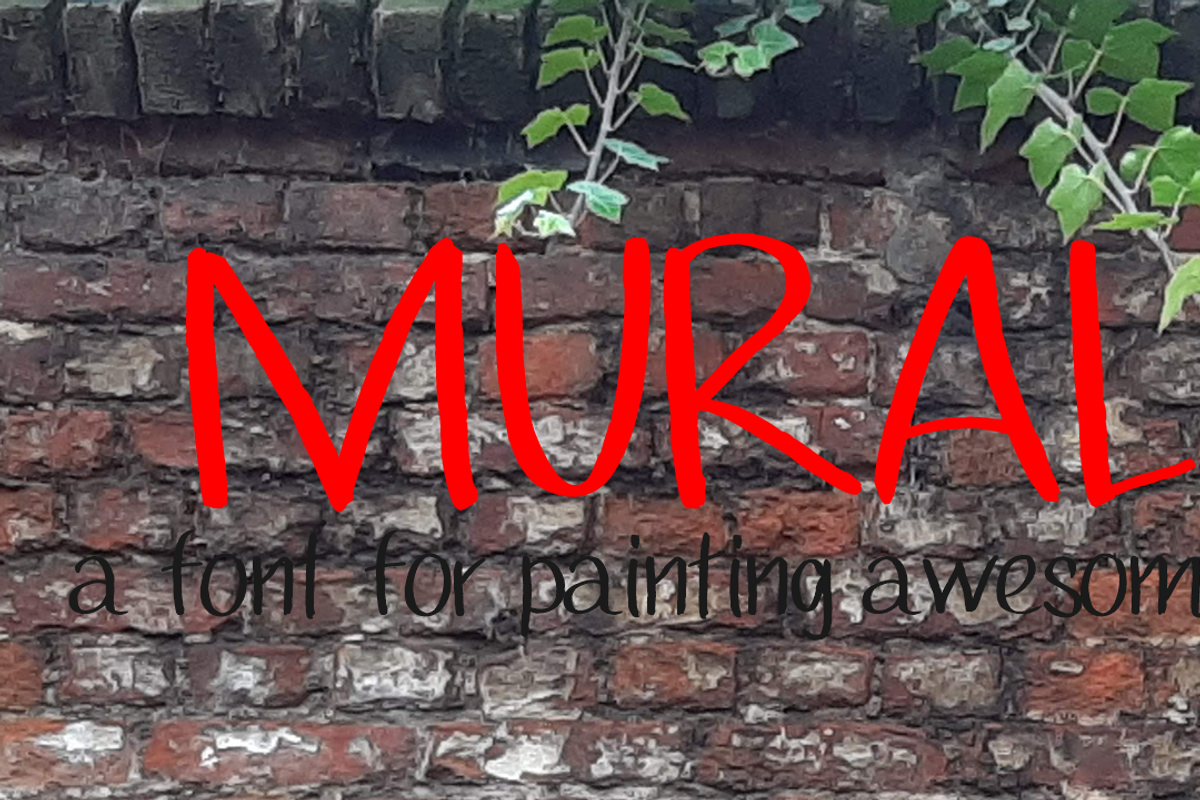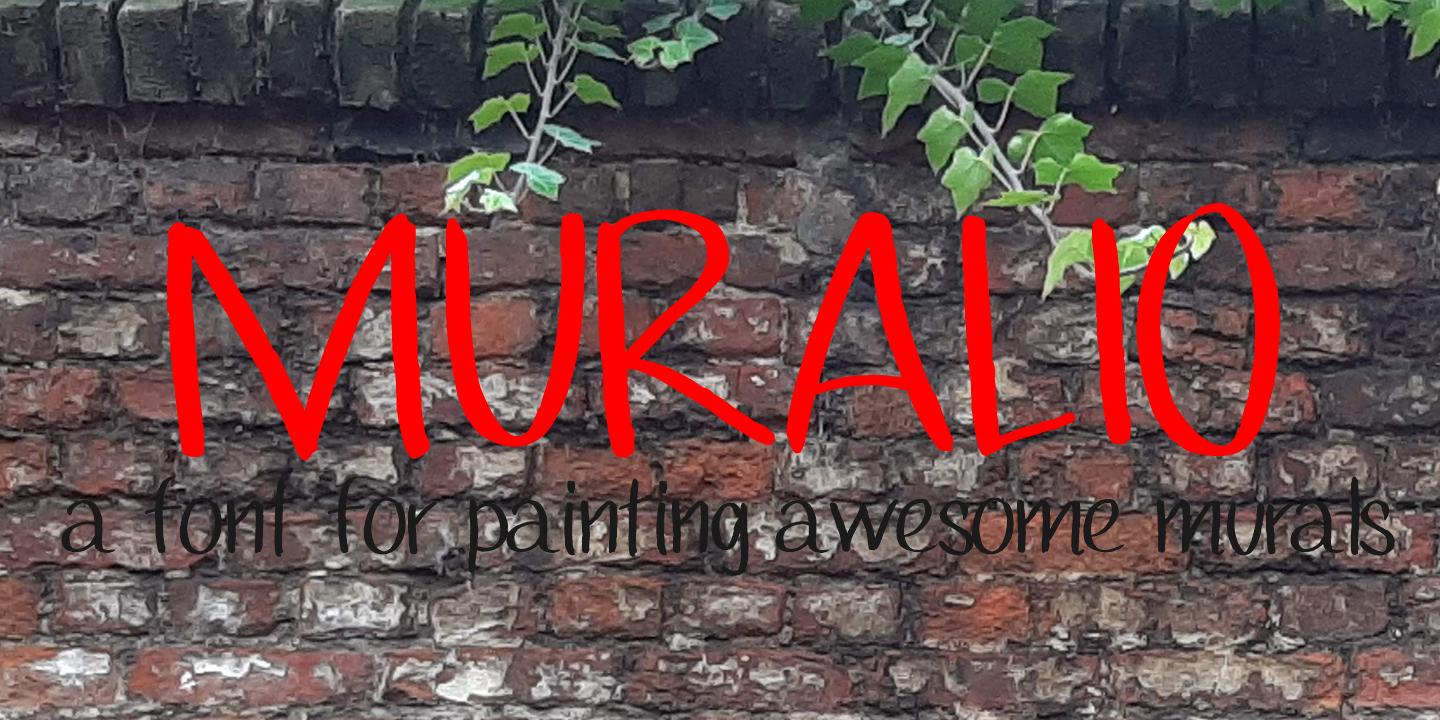
Muralio, a wall painted font
Muralio is an unique wall painted font created by Andrei Olaru and published by Kreativ Font. Inspired by street wall art and dreaming of painting awesome murals, Muralio can help you anywhere a touch of raw paint is needed.
Glyphs: Over 200 - Basic Latin, Diacritics, Alternates, Currency